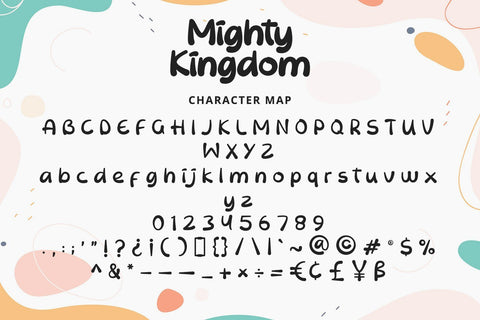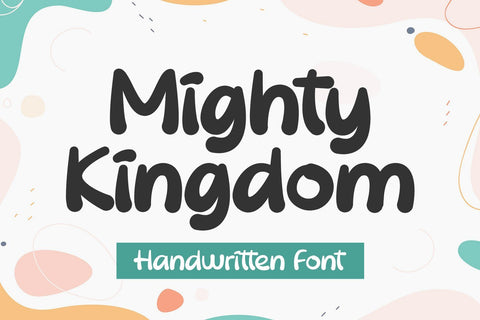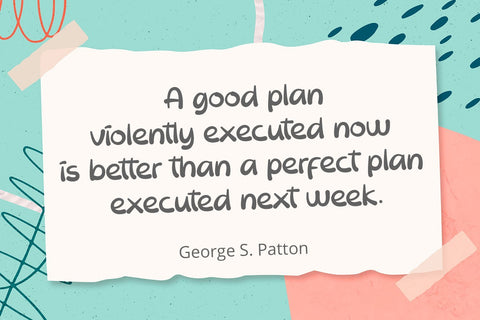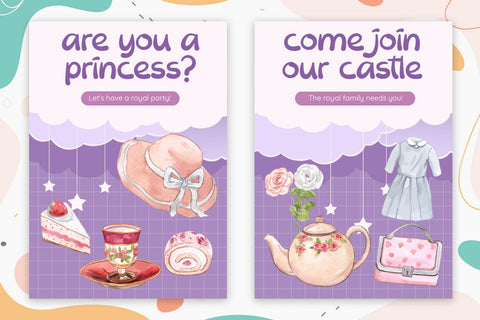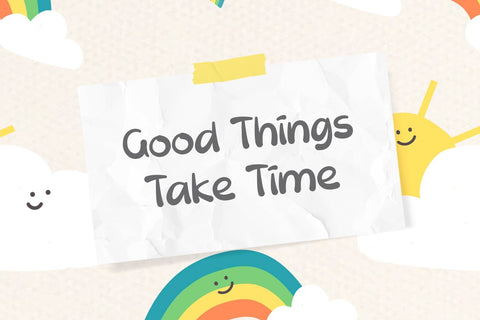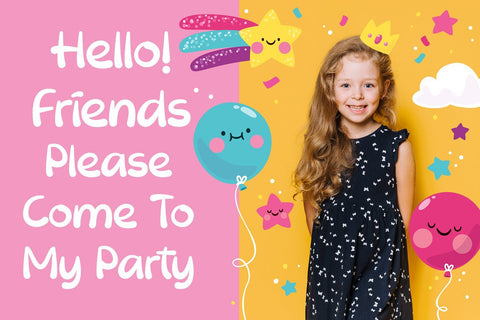
Mighty Kingdom - Handwritten Font
Mighty Kingdom is a stunning handwwritten font with authentic and casual feels. It will be perfectly used for Branding, Logo Design, Lettering, Logotype, Clothing, Poster, magazine, packaging, posters, shopping bags, t-shirts, book covers, photography, special events and other design project.